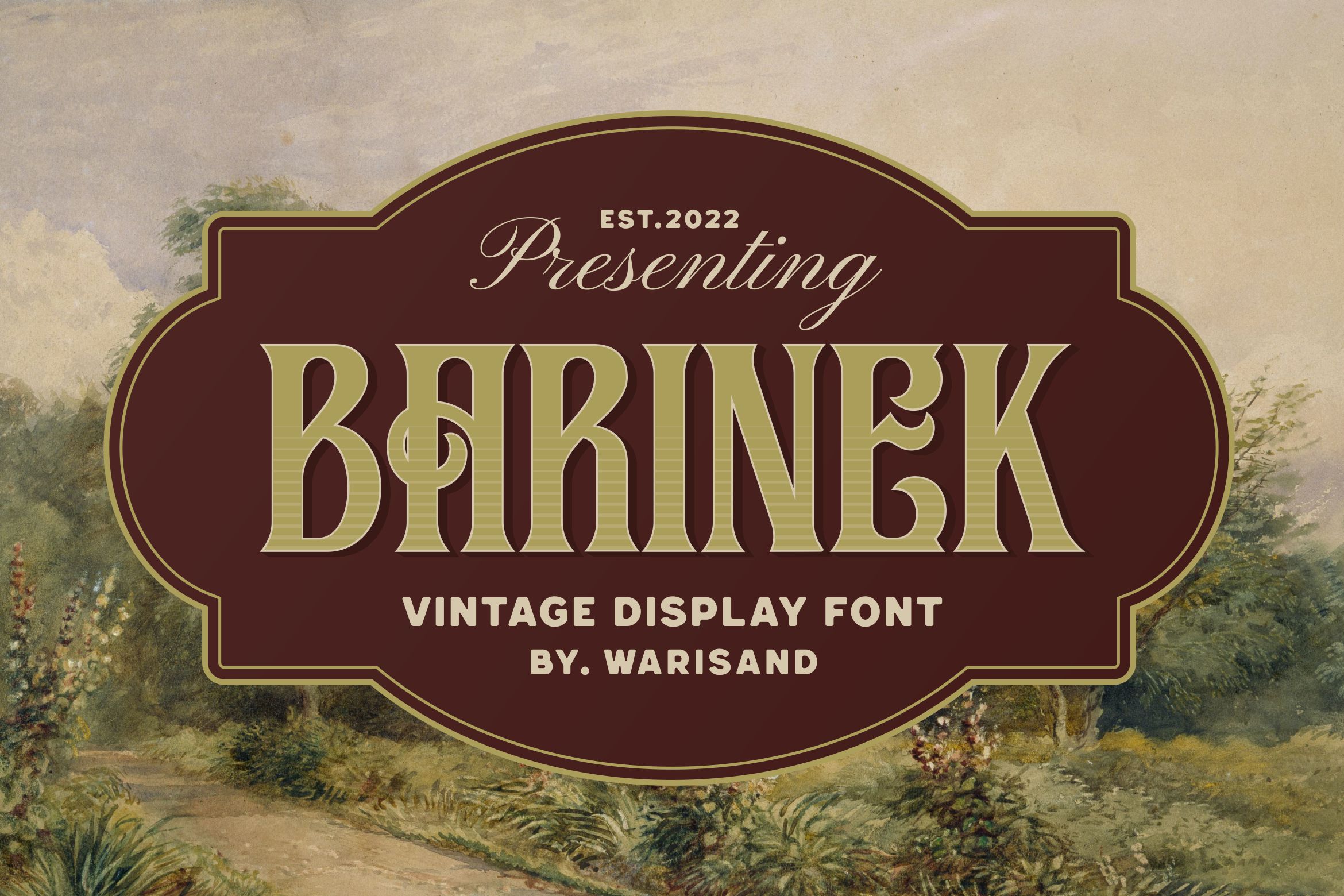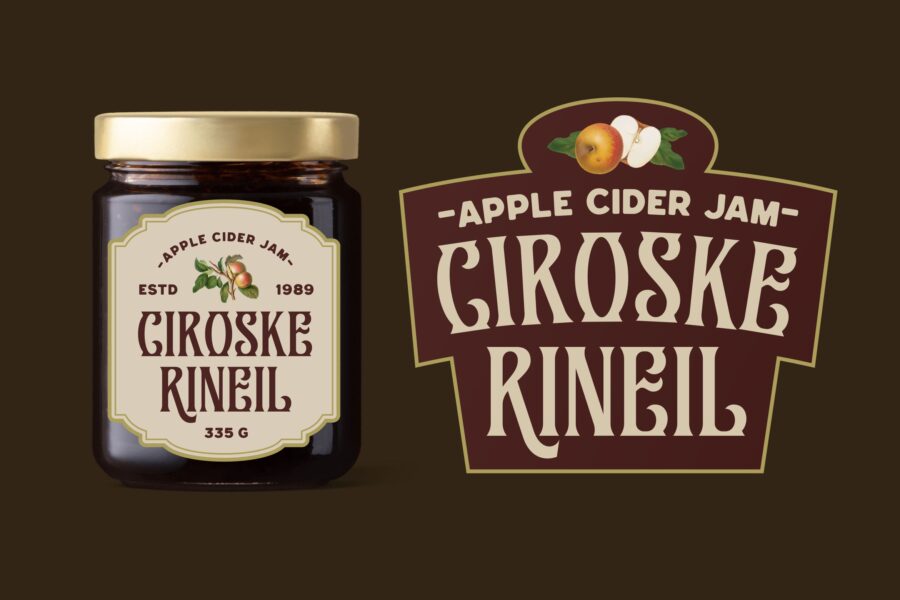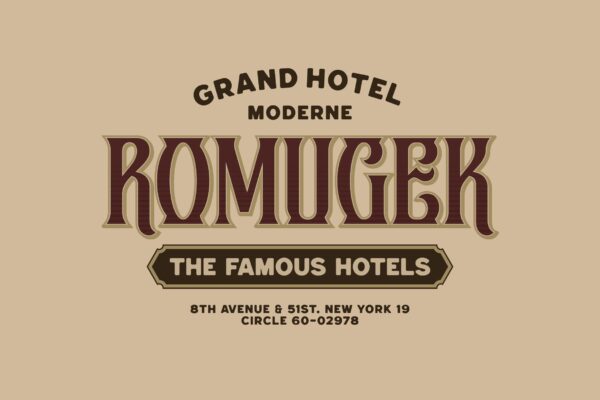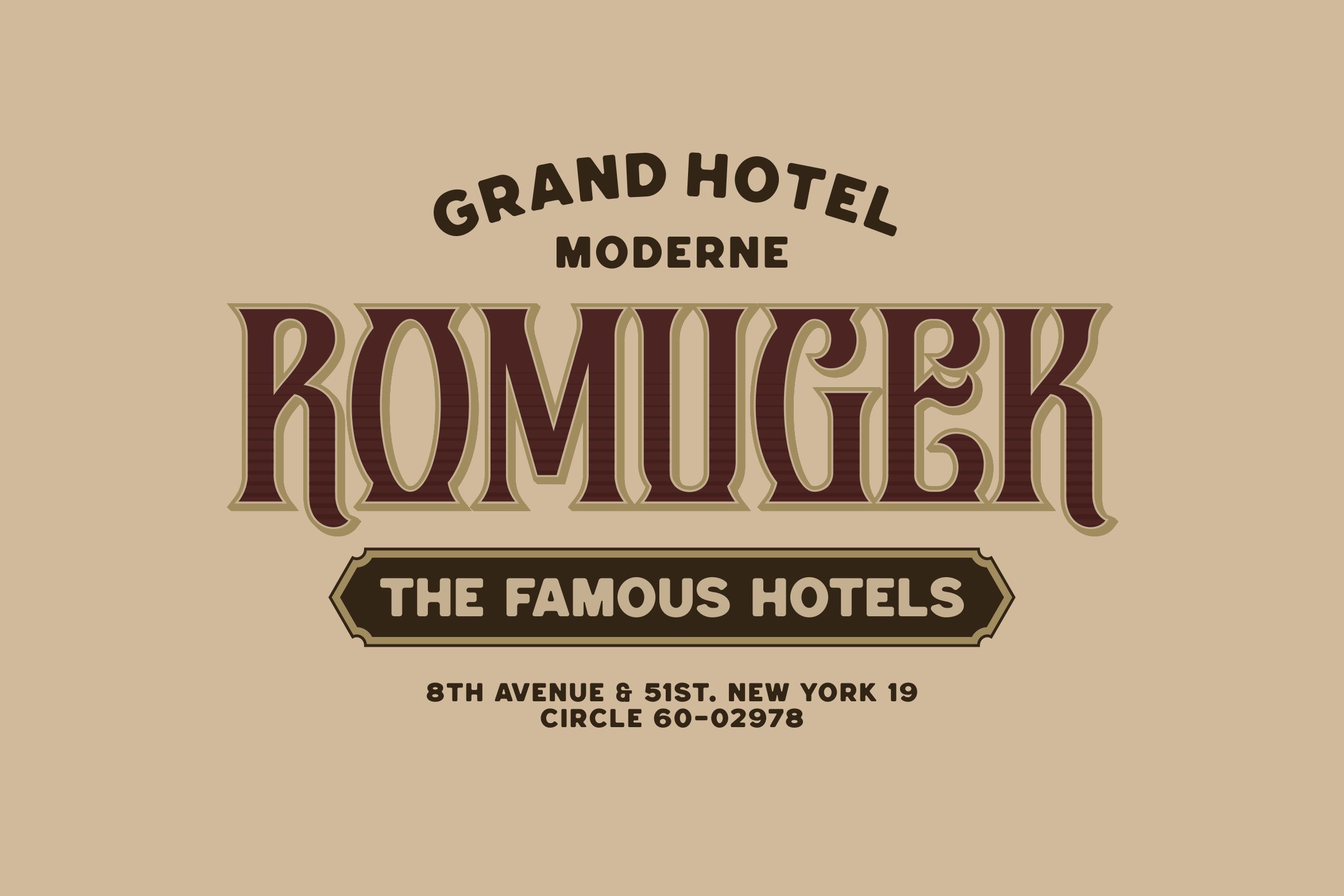
Barinek
Barinek is a striking vintage display font inspired by classic sign painting and European heritage typography. It features high-contrast strokes, unique decorative alternates, and elegantly sharp serifs that evoke the feel of 19th-century packaging, hotel signage, and handcrafted labels. Each letter is meticulously designed with charm and refinement, making it ideal for sophisticated branding, old-style posters, and artisanal product design.
With its stylish alternates and multilingual support, Barinek provides great flexibility for creative typography projects. From jam jar labels and wine packaging to boutique hotel branding and elegant menus, Barinek brings authenticity and visual impact. It’s a perfect blend of old-world luxury and modern design usability.